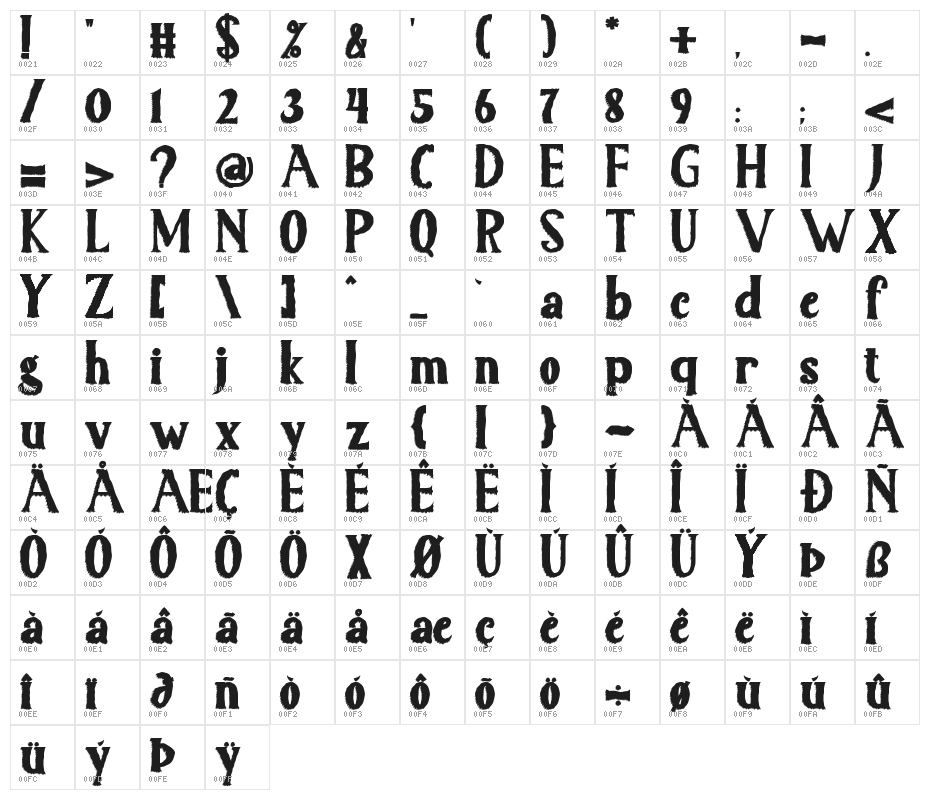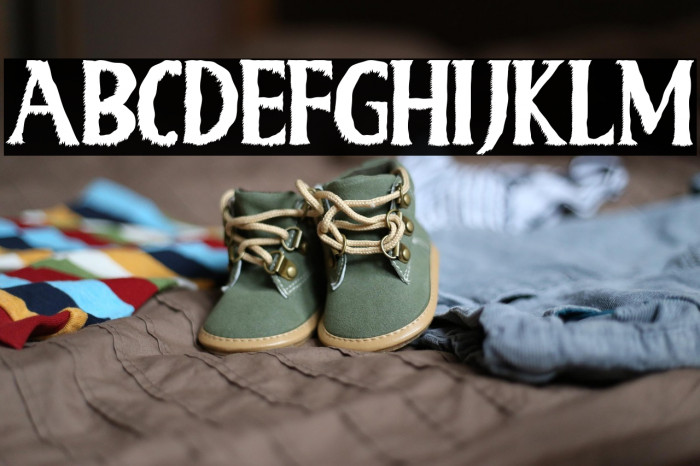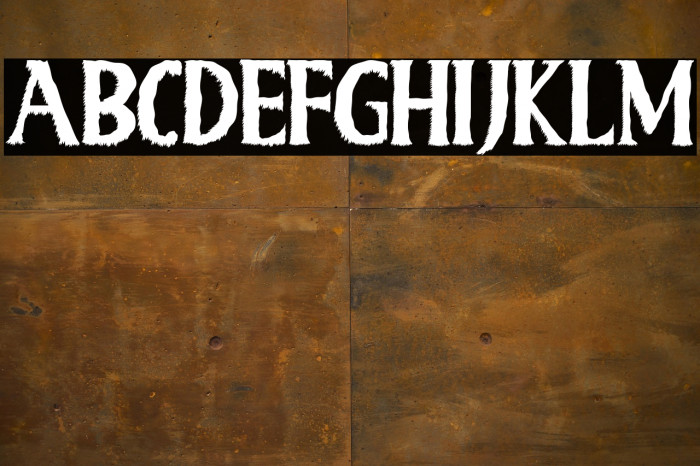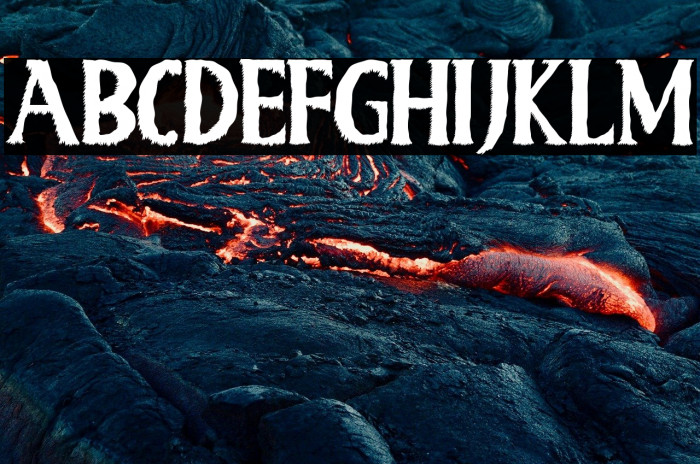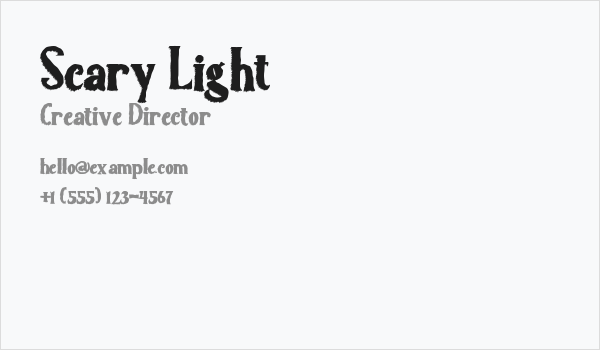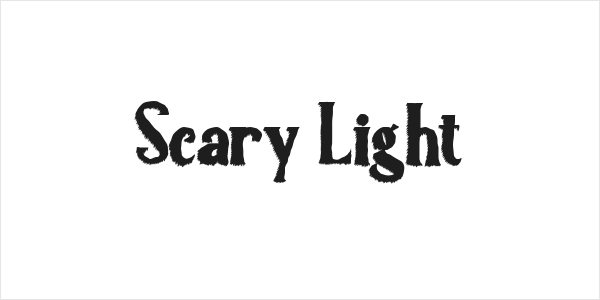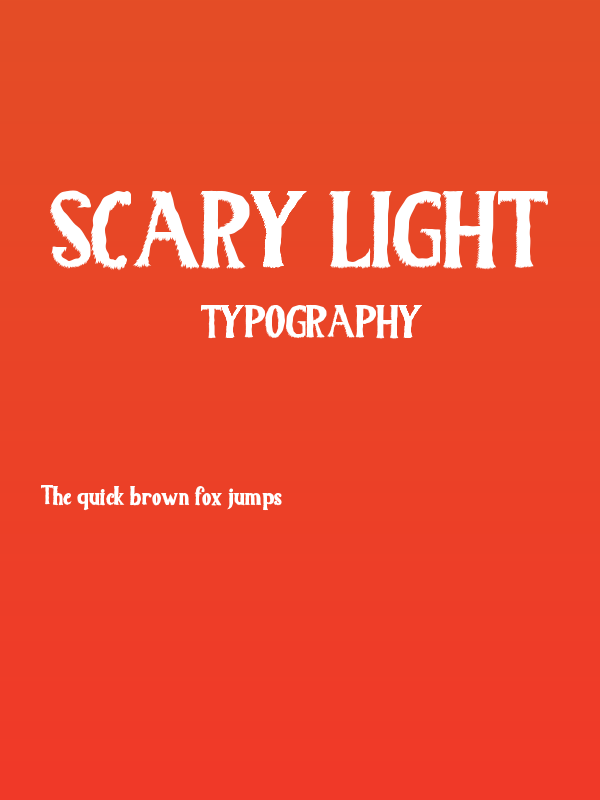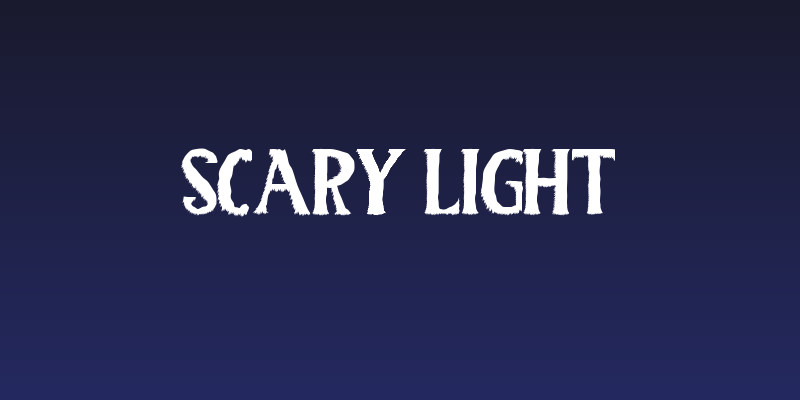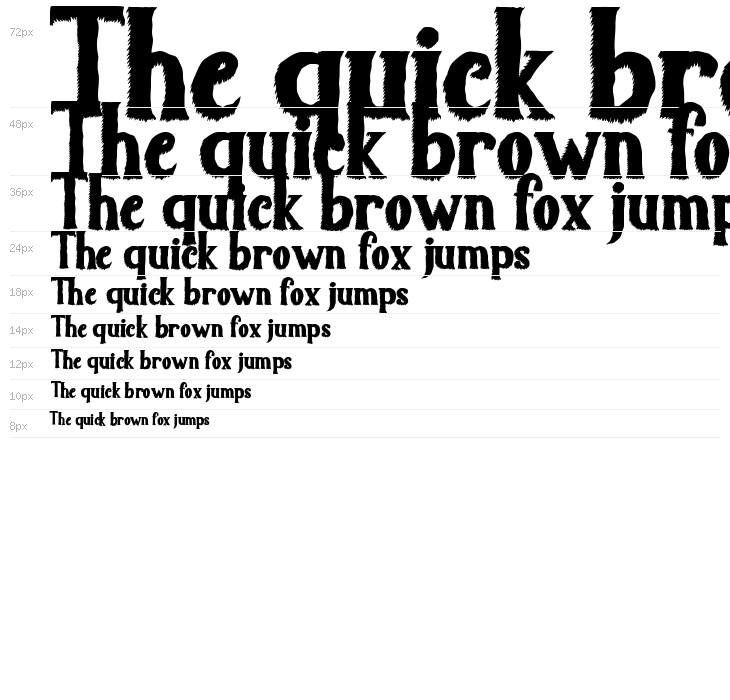
Scary Light Font
Scary Light Description
This font features a jagged, irregular style that evokes a sense of horror and unease. The characters have a rough, textured appearance, reminiscent of torn paper or claw marks. The uppercase and lowercase letters maintain a consistent theme, with sharp edges and uneven strokes that add to the unsettling aesthetic. The numbers and special characters follow suit, ensuring a cohesive look across all glyphs. This font is ideal for creating a spooky or eerie atmosphere, perfect for Halloween-themed projects or horror movie posters.